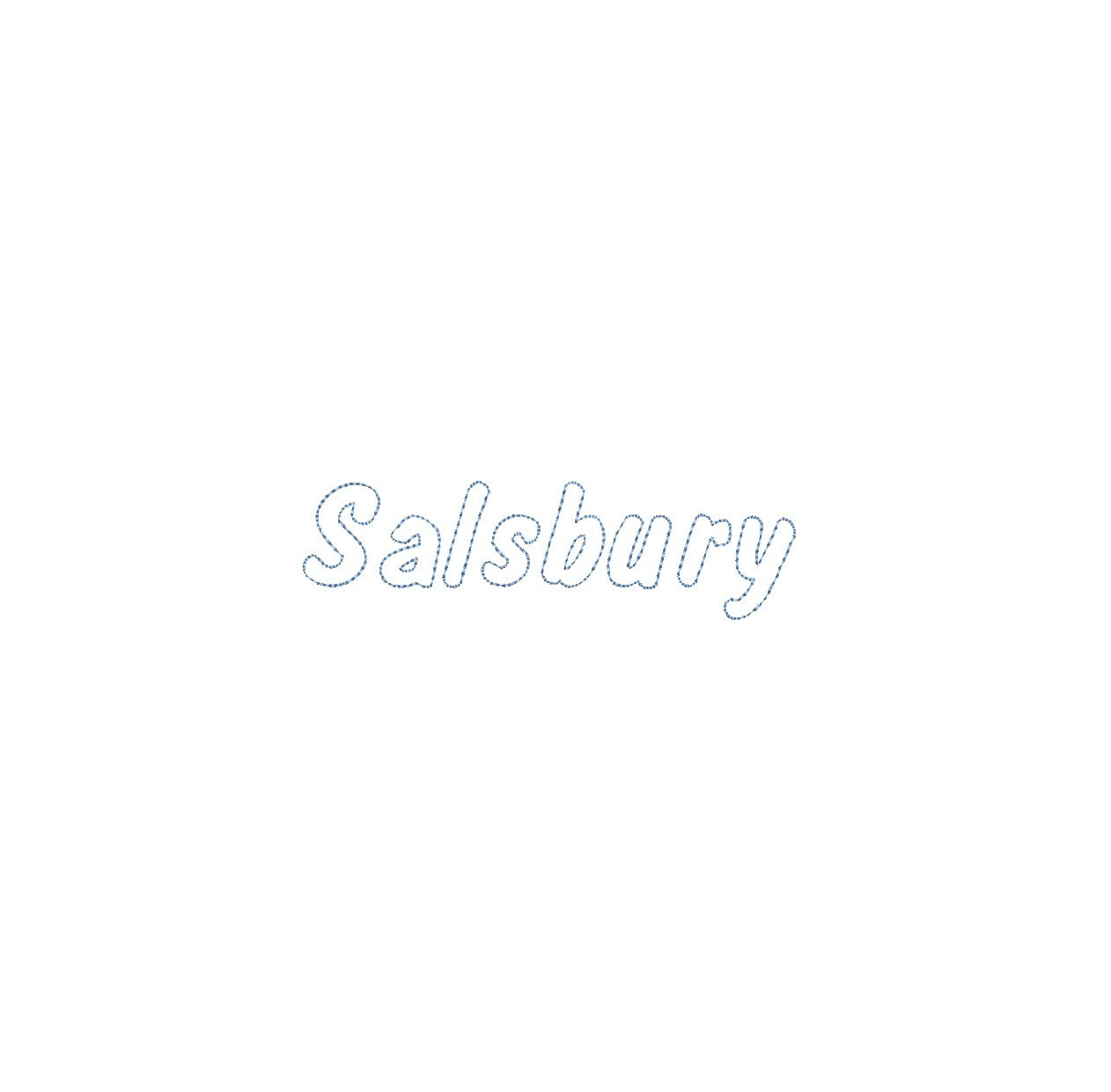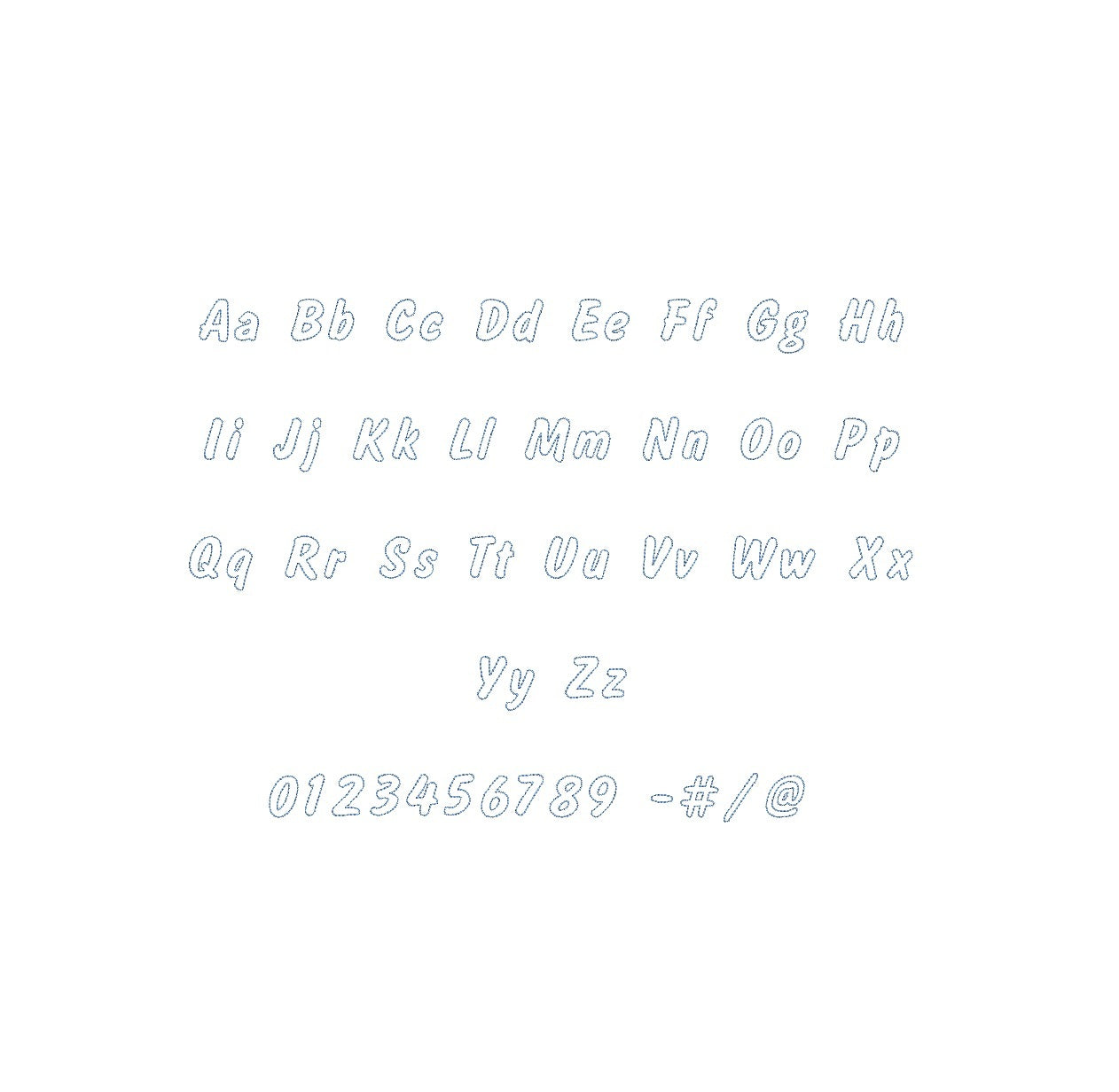
Elevate your embroidery projects with the Salsbury Bean Outline ESA font, designed for Wilcom Studio e4.5.6 and Hatch 3 versions and up. This font seamlessly blends modern flair and precision, infusing your designs with a unique aesthetic perfect for contemporary monograms and embellishments. Experience seamless compatibility for exceptional results and unleash a new level of stitching finesse. Transform your creations into embroidery masterpieces that radiate sophistication and creativity. Elevate your projects with the Salsbury Bean Outline ESA font and make your embroidery truly remarkable.